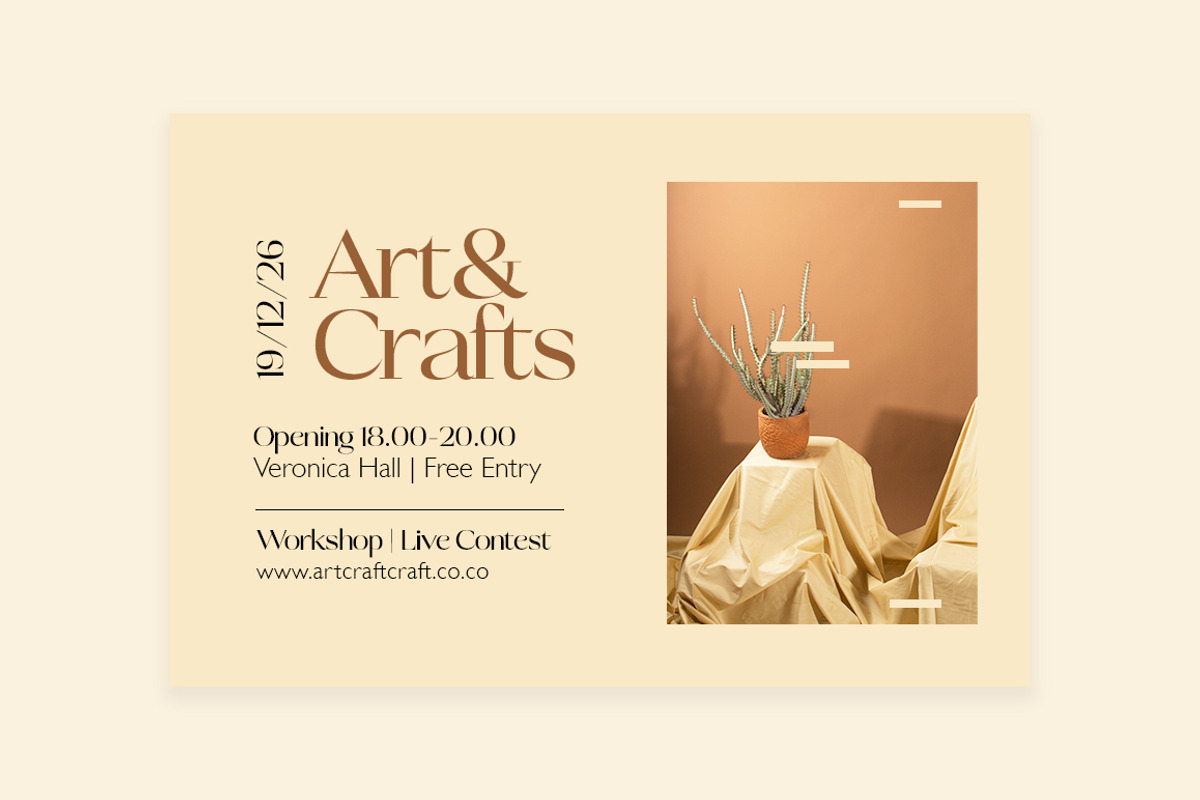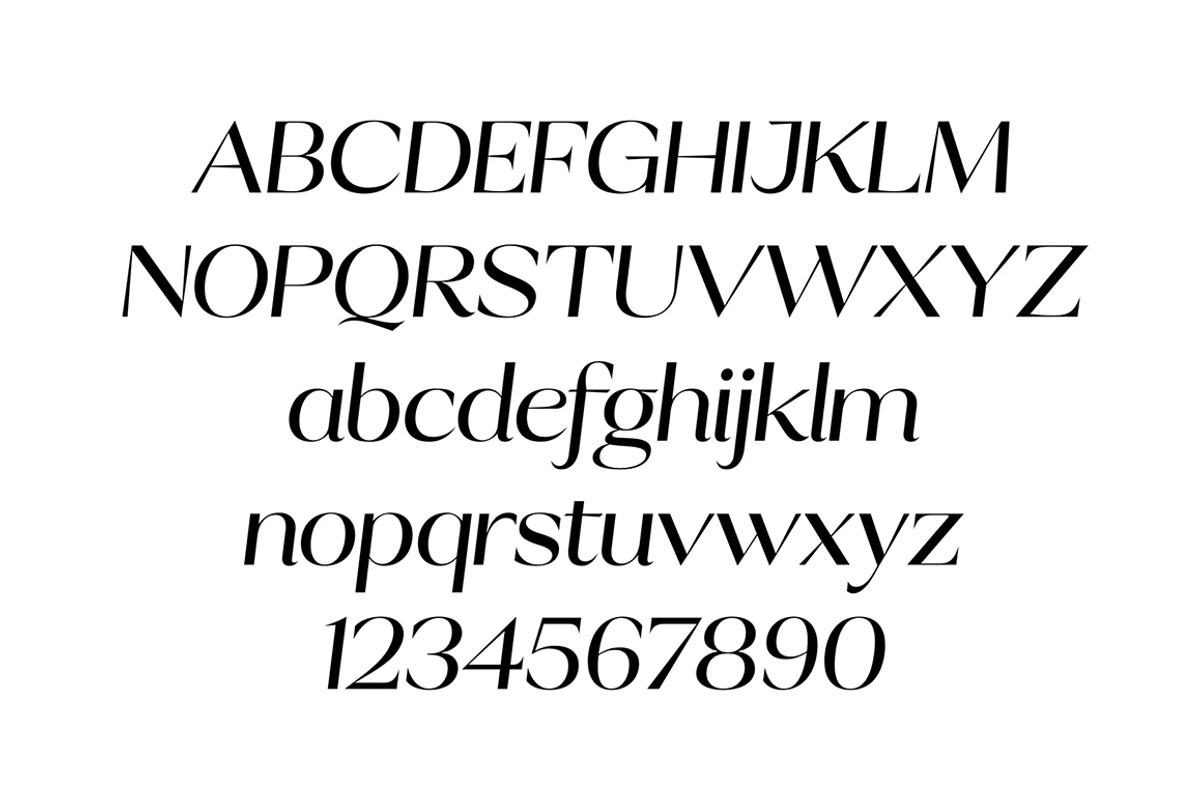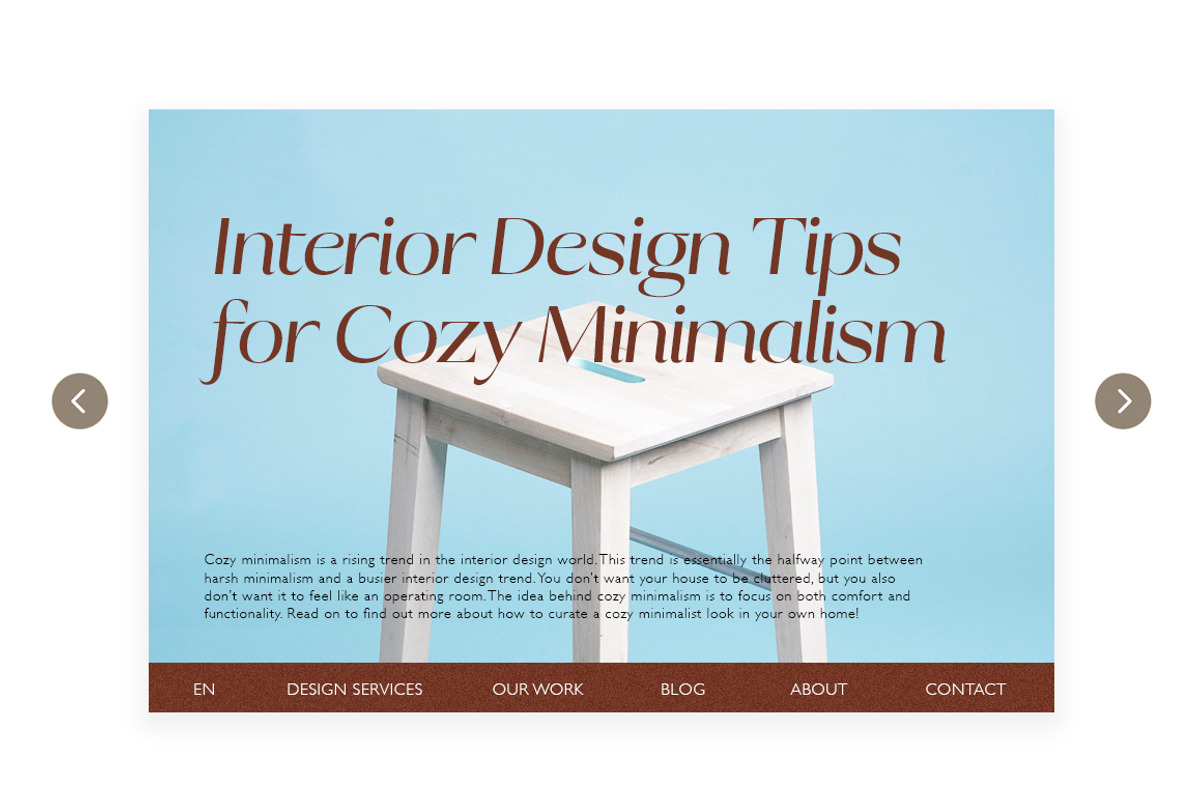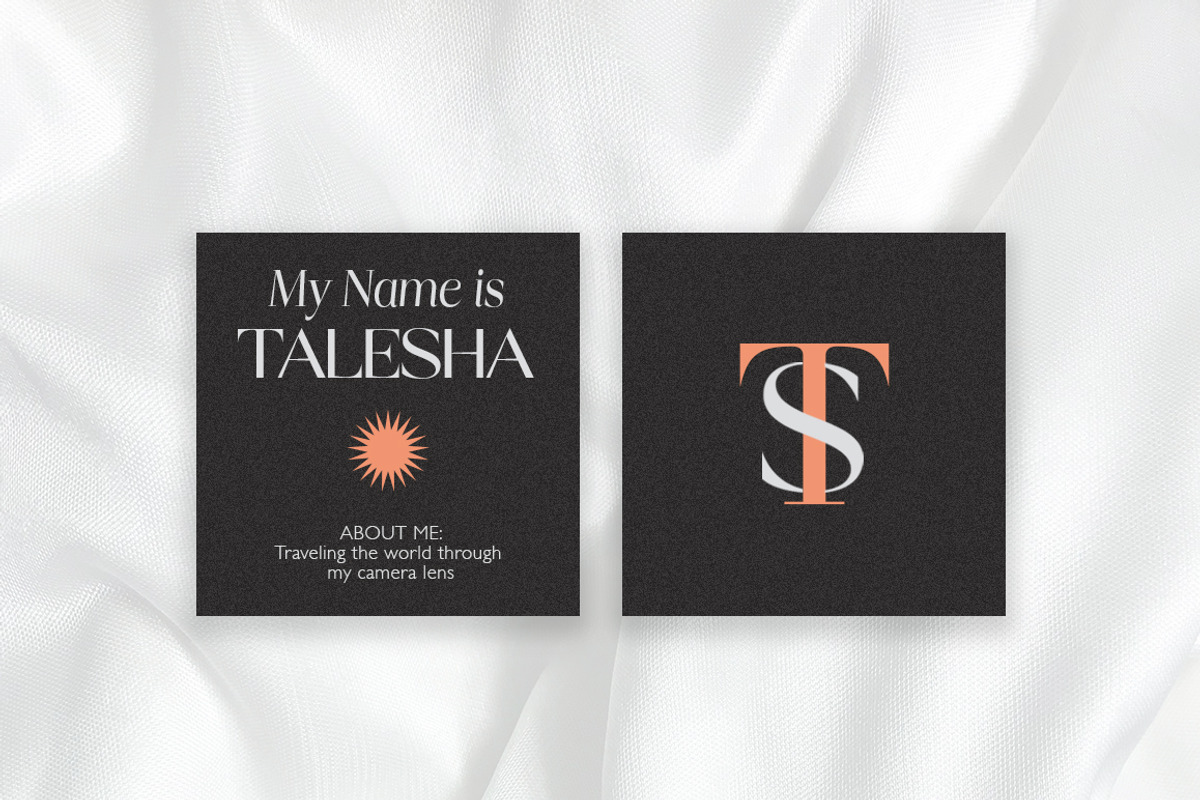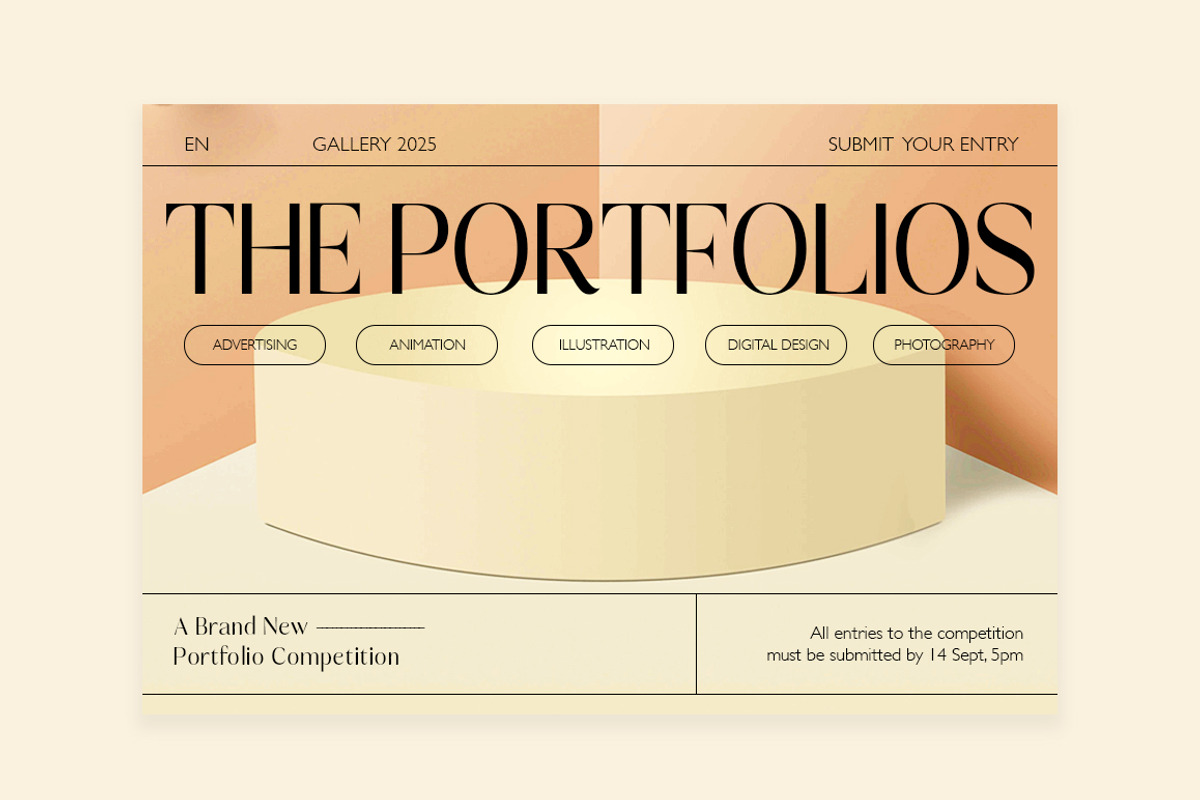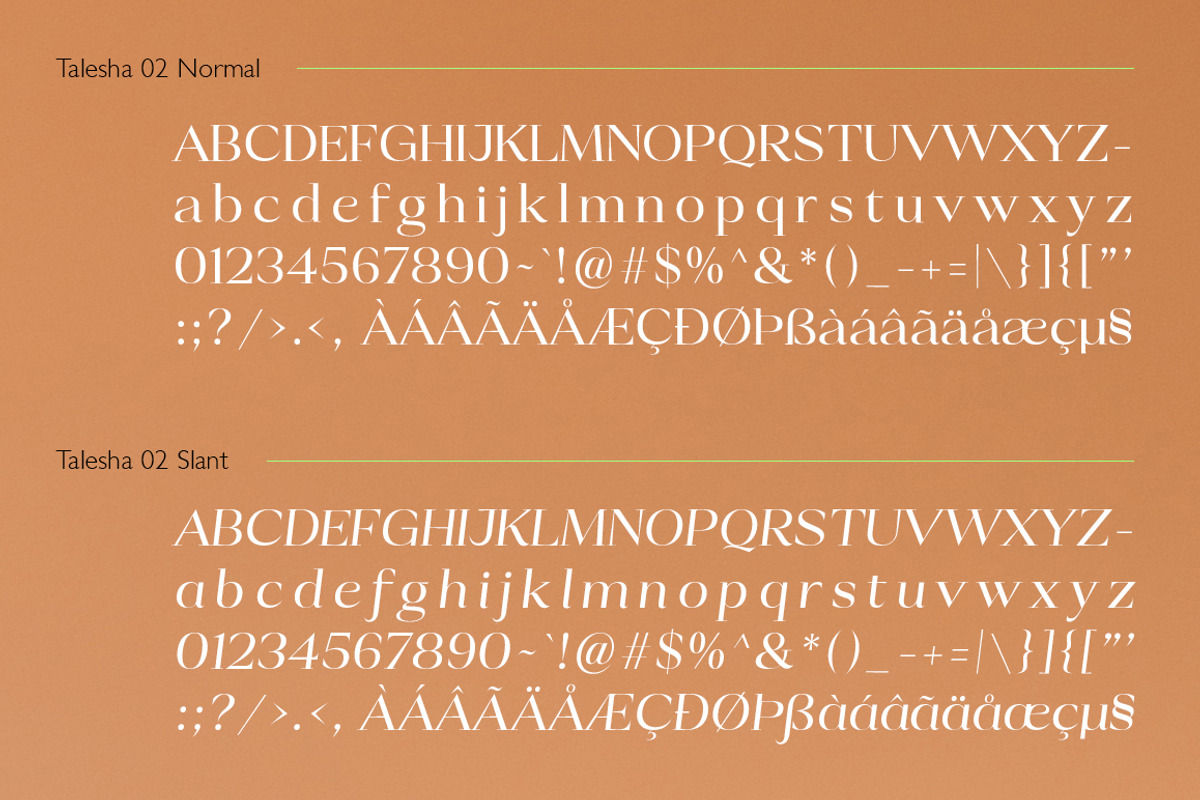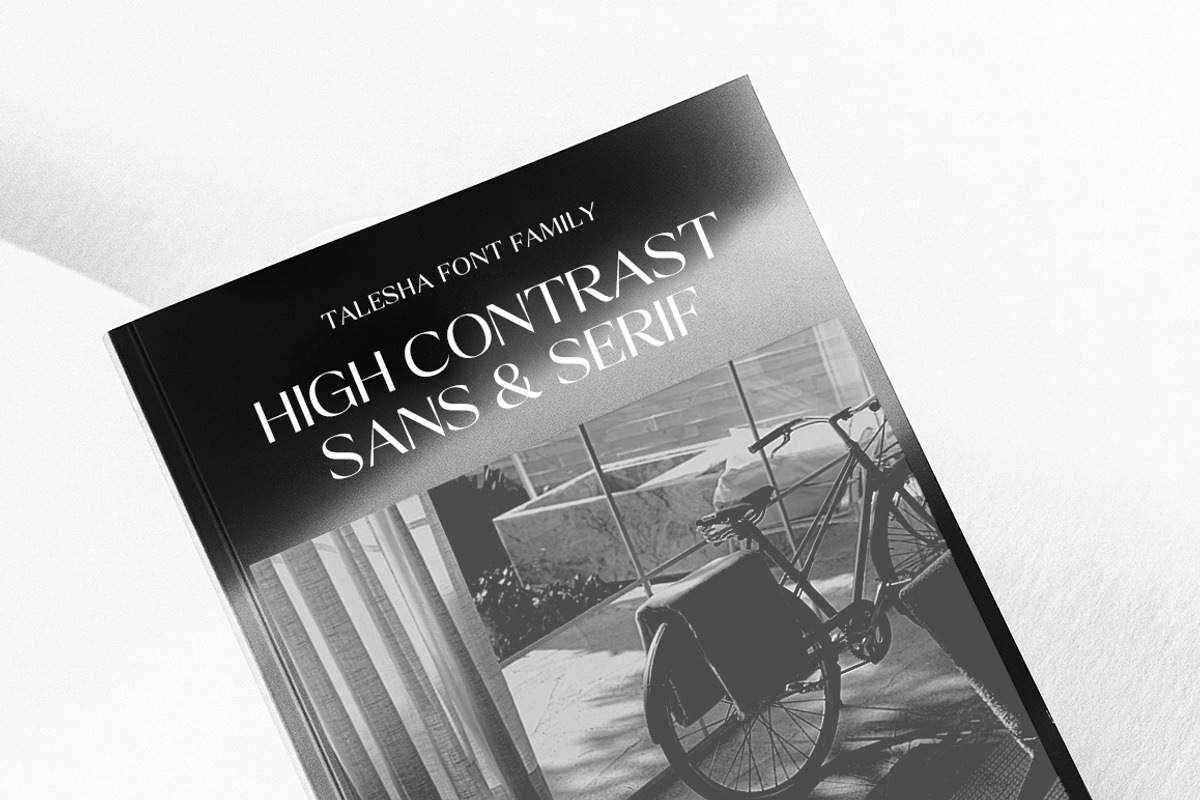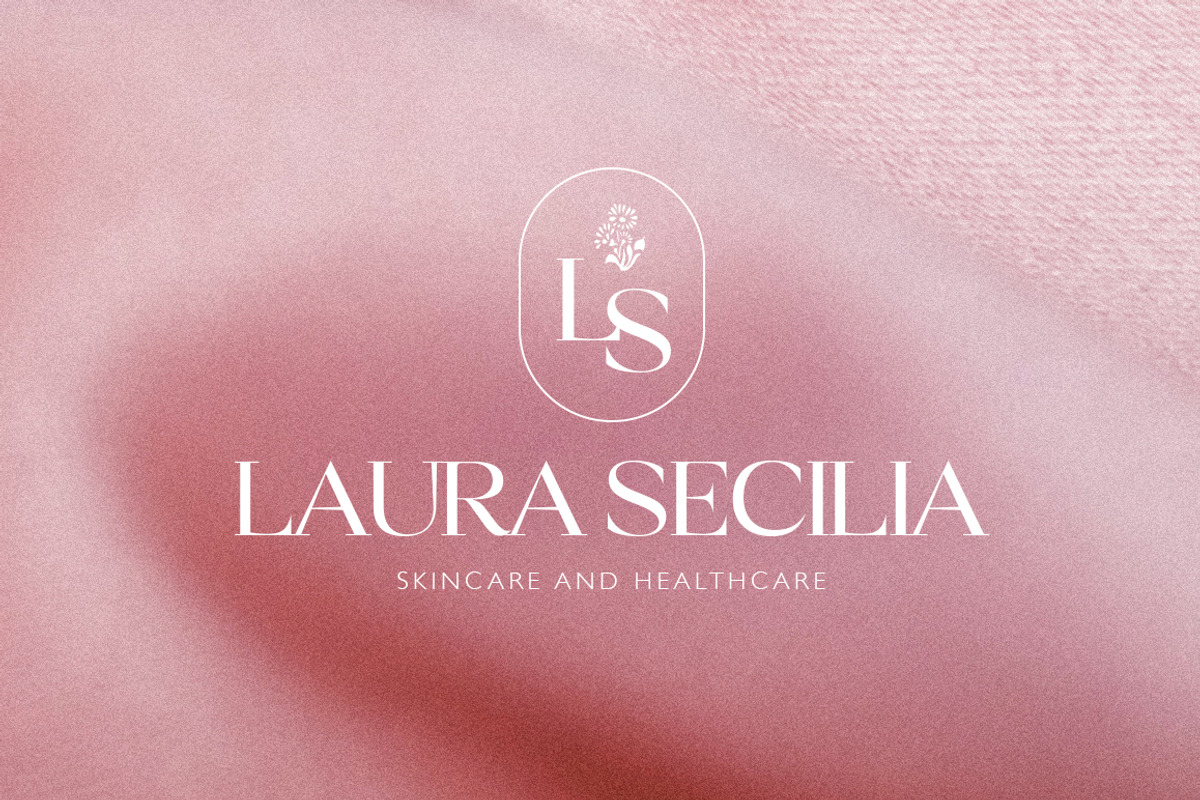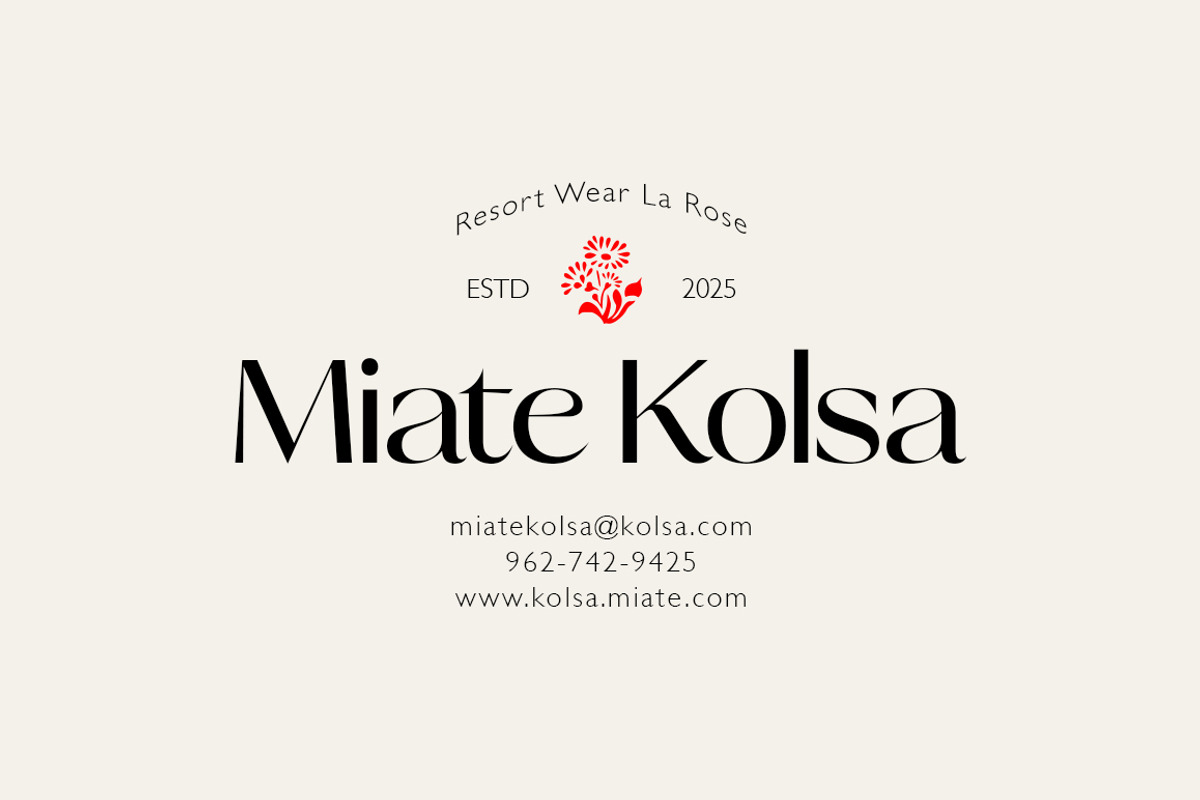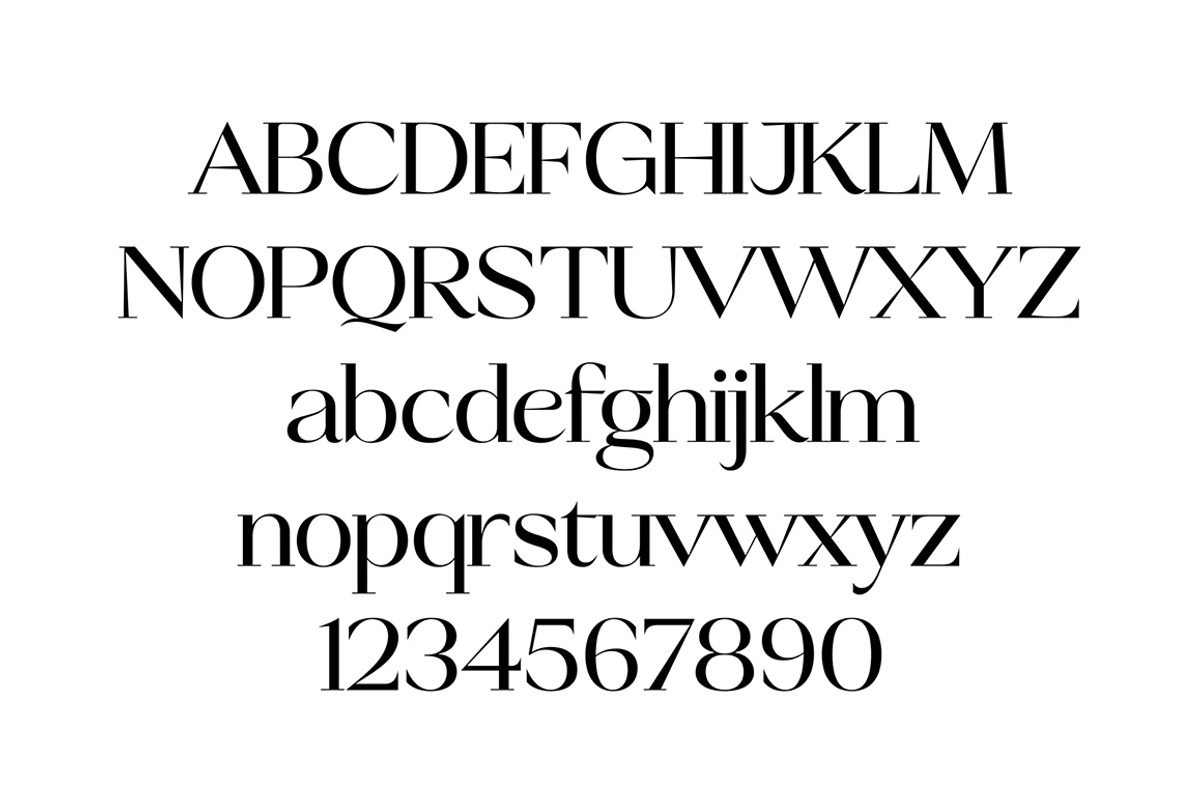
Talesha Font Family
Talesha is a high contrast typeface inspired by old style and contemporary fonts. Talesha family consist of 8 fonts: Sans and Serif Font: Normal, Condensed, Slant with 239 glyphs each. Opentype features allow for the implementation of typographic niceties such ligatures and extended language support. Perfectly for elegant branding, web design, magazine design, logo design, headlines, posters, packaging, cards or wedding invitation and more.
Typeface Features:
- 239 Glyphs
- Sans and Serif
- Normal, Condensed, Slant: 8 Fonts
- Opentype Features: Ligatures
- Latin Language Support
- Kerning